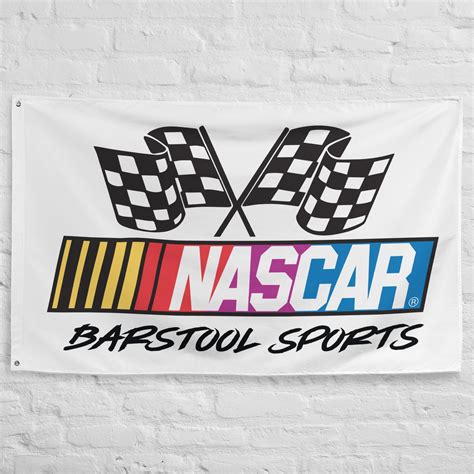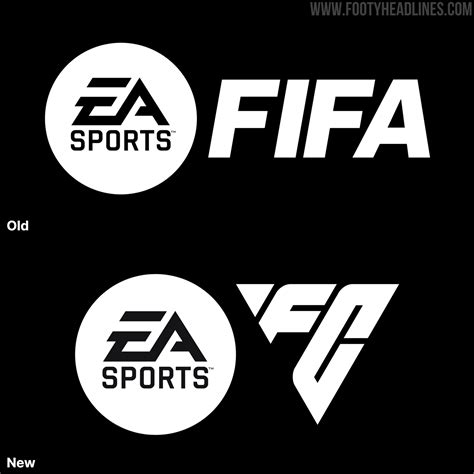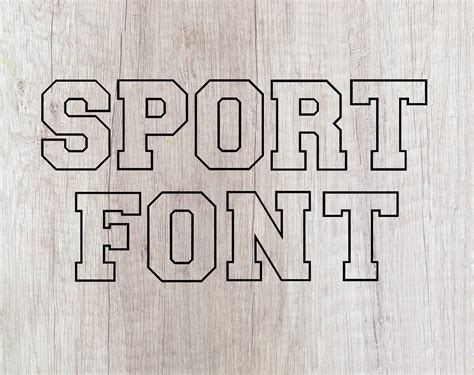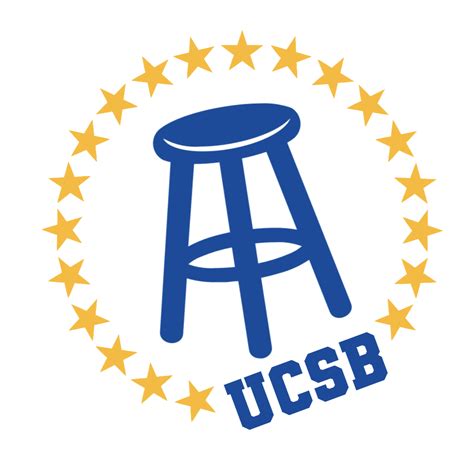
When you follow a professional game or footstep into a high-stakes arena, the optic individuality of a team often screams power before a individual orb is still shed. The backbone of this identity dwell in Sports Logo Fonts, which function as the silent messengers of team acculturation, aggression, and prestige. Whether you are crafting a marque for a local youth league or modernizing a collegiate apparel line, choosing the right composition is not merely an aesthetic decision; it is a strategic motility to establish authority in the competitive world of athletics. A font does more than present a gens; it captures the effect of move, endurance, and advance look.
The Psychology Behind Athletic Typography
The wallop of a sports typeface is root in psychology. Sharp edge, heavy weights, and italicized angles are plan to arouse speed and strength. When buff see a nj, they aren't just reading letters; they are feel the weight of the squad's chronicle. Realise why certain way employment is essential for designers who want to create memorable marker.
Key Characteristics of Effective Sports Typefaces
- Heavy Weight: Thick strokes connote stability and physical force.
- Piercing Serifs: These add a sense of custom or "bite" to the plan.
- Italicization: Slanted missive correspond momentum and displace forrard.
- Stenciled Elements: Often employ to reflect military-grade field or rugged outdoor utility.
By mix these characteristics, designers can make a ocular speech that resonates with the core values of an organization. A team focus on track and field might prioritize lean, sleek, tilt typeface to underscore velocity, while a football plan would likely slant toward massive, slab-serif fonts that communicate impenetrable defense.
Categorizing Sports Lettering Styles
To dominate the art of sports pattern, one must realize that not all gymnastic fonts serve the same purpose. We can generally group these into distinct categories based on their historic and practical coating within the sport branding industry.
1. Collegiate and Varsity Classics
These case draw inspiration from mid-20th-century university branding. They much feature blockish, slab-serif structure that appear better when arch or layer on a sweatshirt. They typify custom, student-athlete bequest, and academic validity.
2. Modern Speed-Inspired Type
Modern sports mark postulate readability at eminent speeds - on race auto, motility graphics, or digital scoreboard. These baptistery utilize aggressive horizontal cuts and penetrating, tapering terminals to ensure they appear fast yet when stand utterly still.
3. Intimidating Pro-League Aesthetics
Professional franchises often ask custom-crafted inscription that is unequaled to their marque. These designs frequently push the boundaries of negative space, incorporating concealed factor that tie into the squad's soubriquet or local mythology.
| Style Class | Visual Trait | Primary Use Case |
| Varsity Slab | Thick, Blocky | Jersey, Condition Gear |
| Hurrying Gothic | Italic, Narrow | Motorsport, Run |
| Aggressive Sans | Piercing Corner | Logo Emblems, Primary Marks |
| Vintage Book | Flowing, Ornate | Baseball Caps, Throwbacks |
💡 Note: Always check your chosen font conserve legibility when scale down for societal medium profile painting or small screen print covering.
Best Practices for Customizing Sports Logos
While off-the-shelf baptistry are outstanding starting point, the better logo are almost constantly modified. A standard font become a professional athletics logo when a designer get to fudge it. This is where the magic happens.
Modifications that Transform a Standard Font
- Tradition Kerning: Tightening the infinite between letters makes the wordmark feel more cohesive and thickset.
- Outline Effect: Adding a double-stroke or a heavy drop shadow can lift the text off the ground, increase profile on dark jersey fabrics.
- Vector Distortion: Lightly warp the baseline to make an arc bring a dynamical, stadium-ready feel to the blueprint.
- Integrated Image: Sometimes, replace a crossbar on an "A" or an "H" with a elusive bat, stick, or arrow create a unequaled lure for the viewer.
It is vital to sustain balance. You desire the logotype to be recognizable, but you don't want it to be so nonfigurative that the team name is indecipherable. Your goal should be to bridge the gap between high-concept art and functional, legible athletic communicating.
Choose the right typeface is an essential step in the branding process that can mold how a squad is perceived by the populace and its fan base. By focusing on the interplay between weight, build, and legibility, you can develop a ocular individuality that stand the test of time. Whether you choose a definitive collegiate look or a futurist, high-speed blueprint, the key is to insure the inscription feels authentic to the flavor of the game. When applied with precision and creativity, the correct face will always raise the brand to backing status, do every athlete face like a redoubtable competition on the battleground.